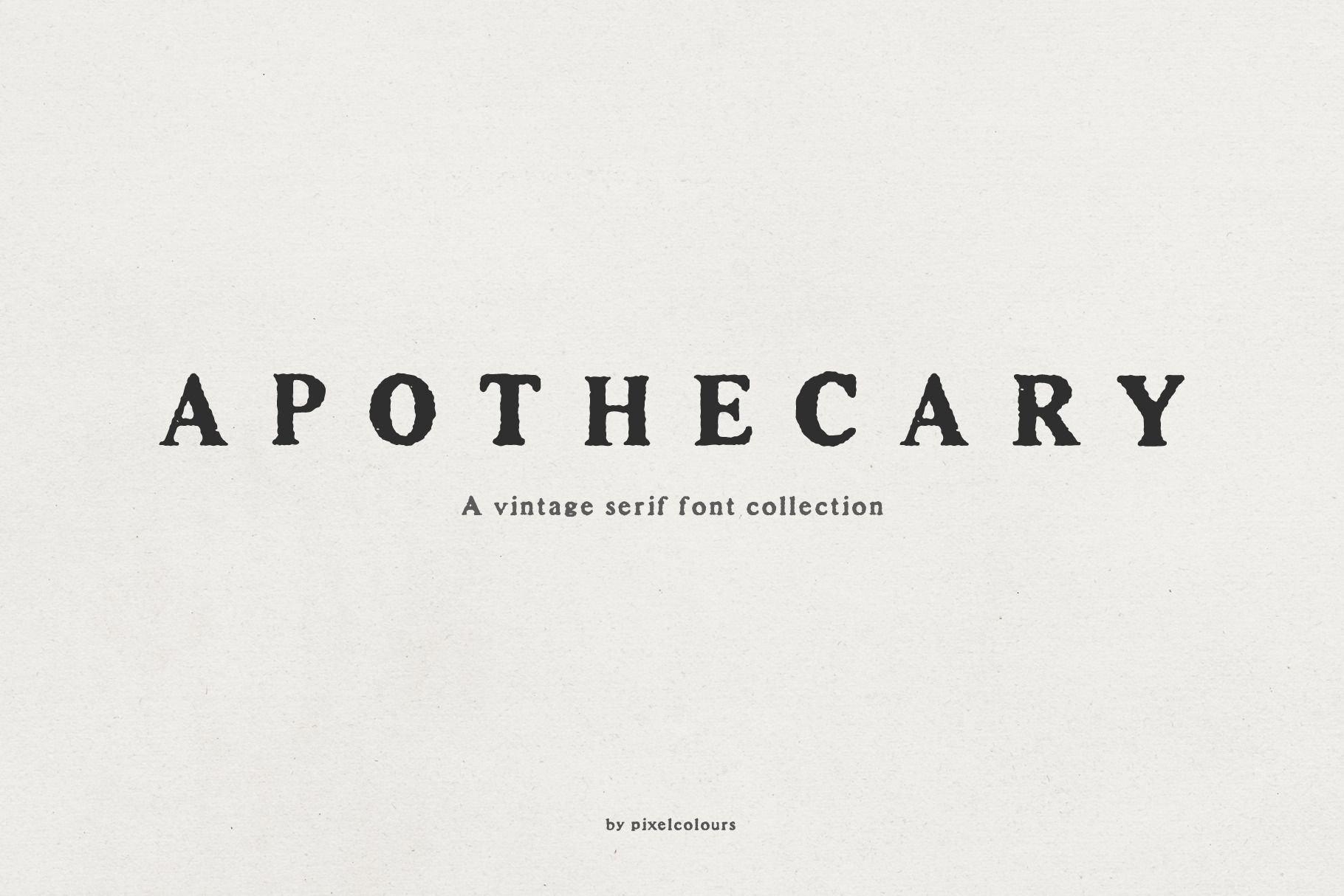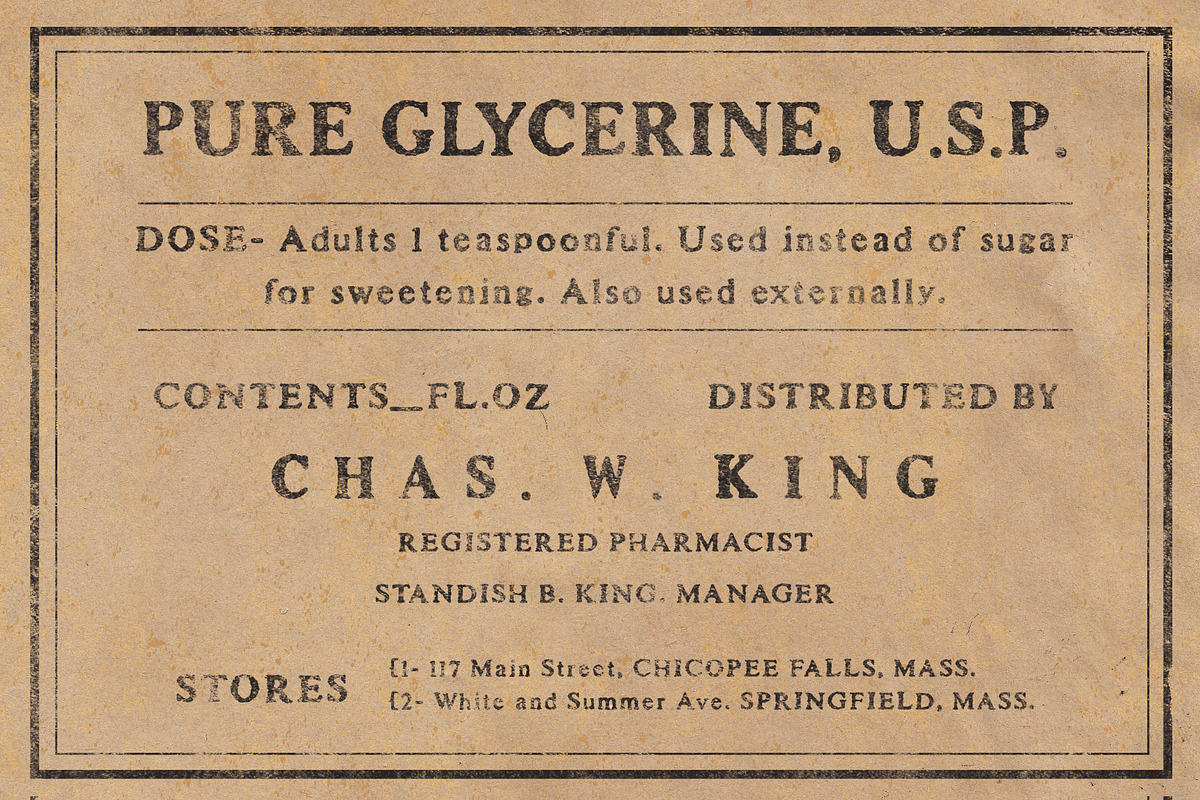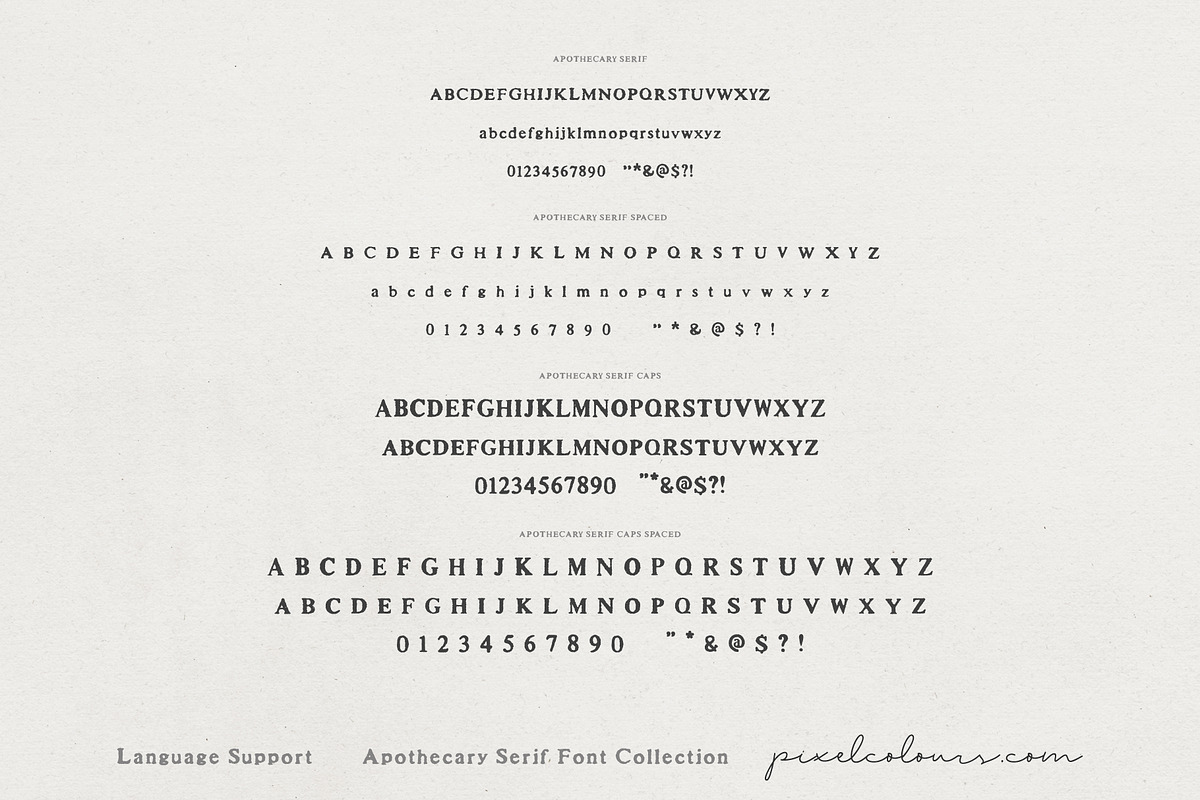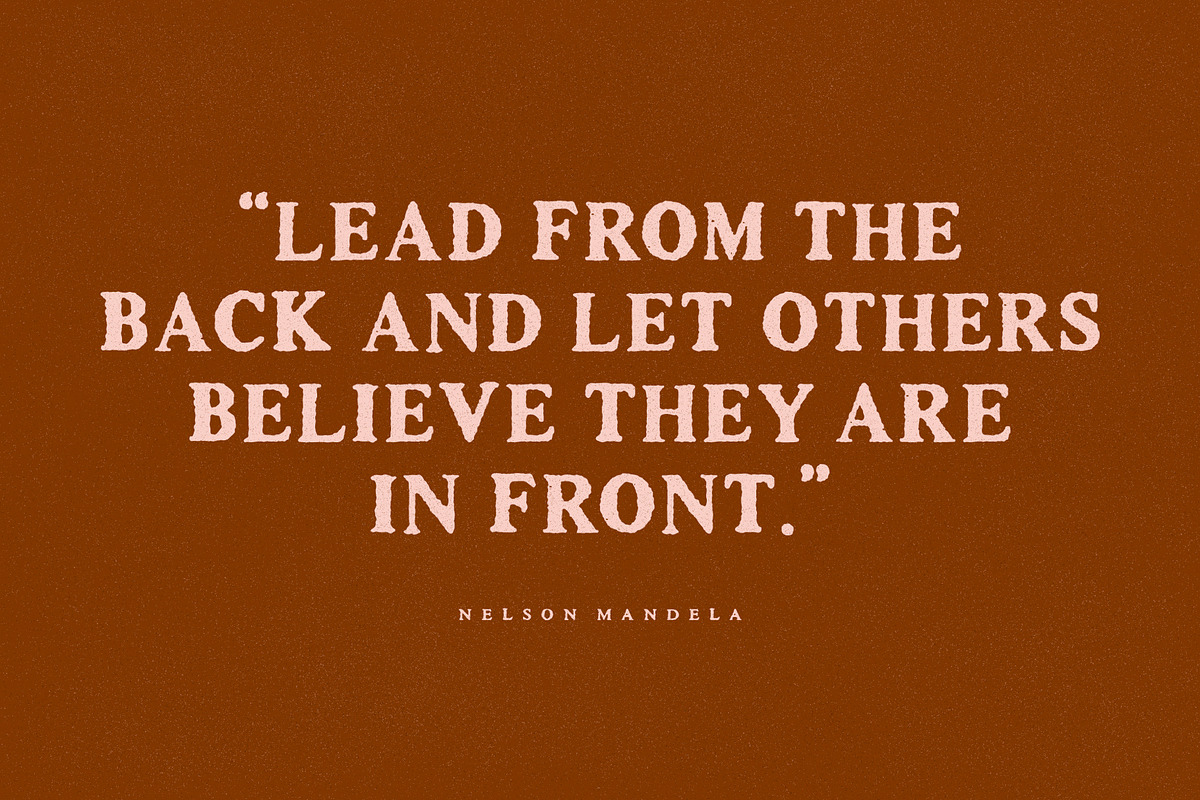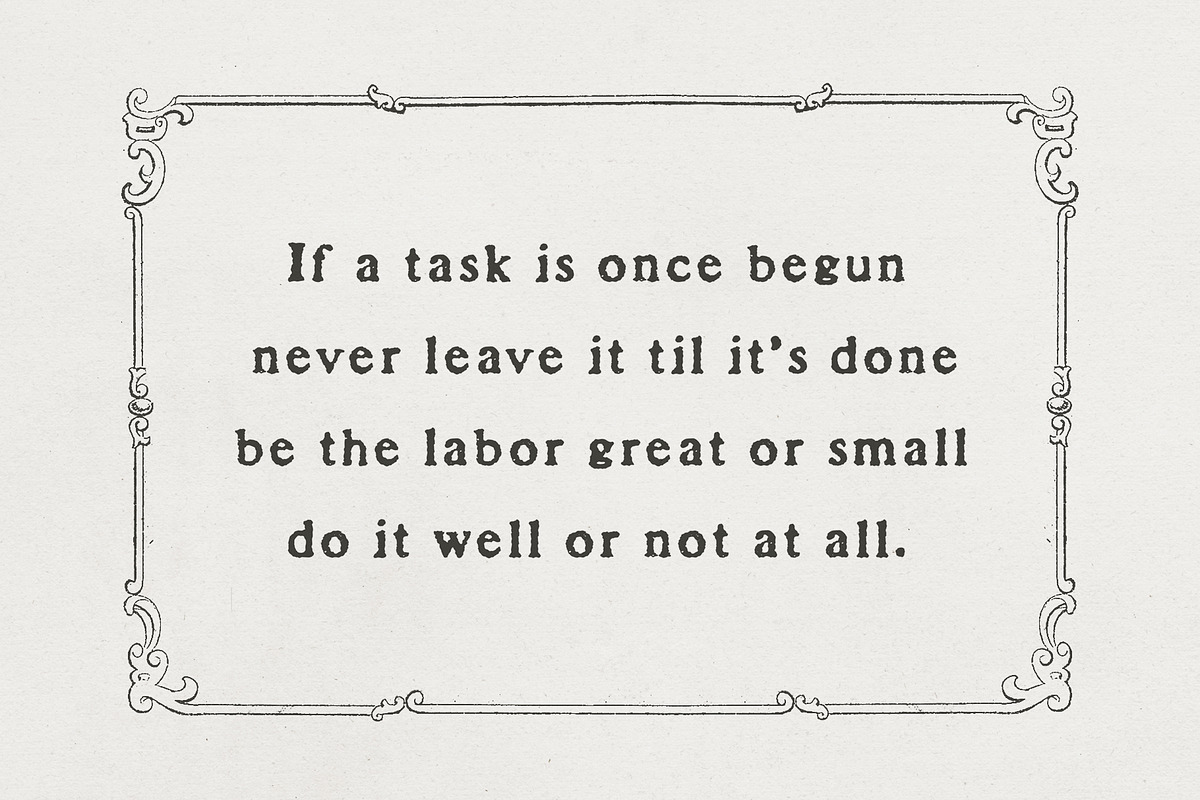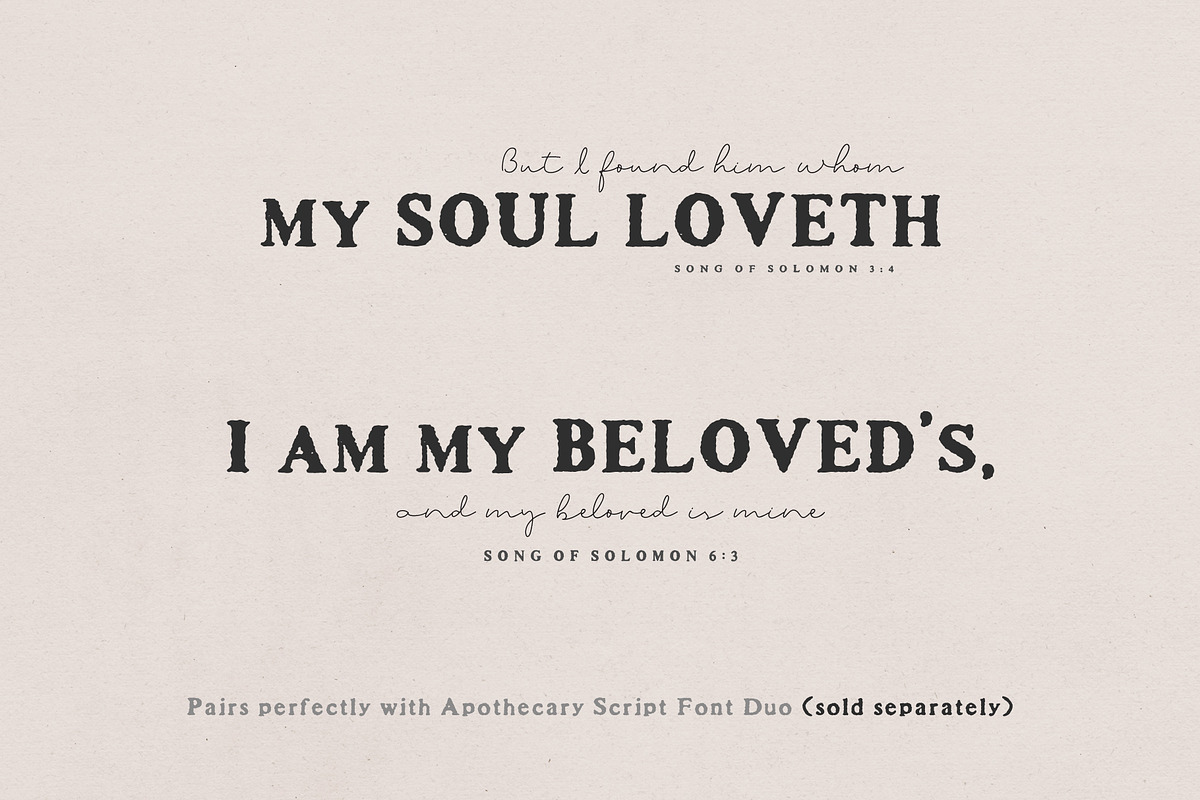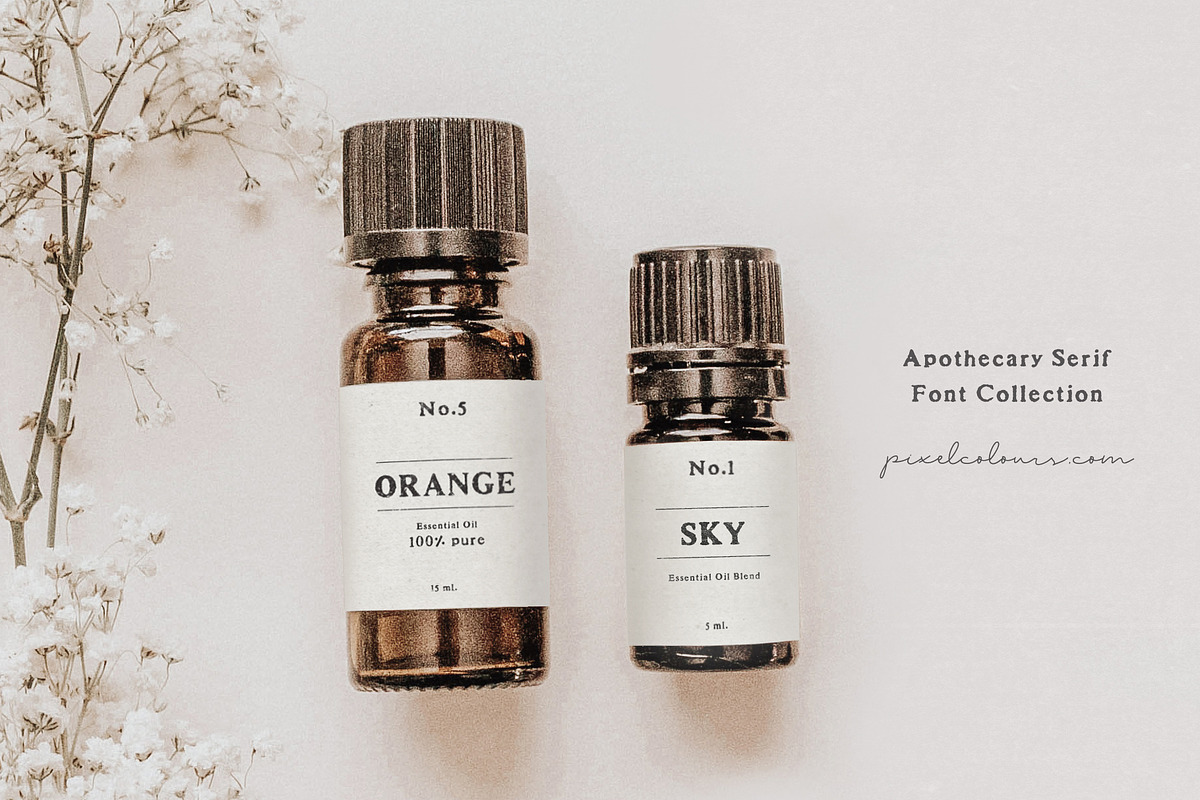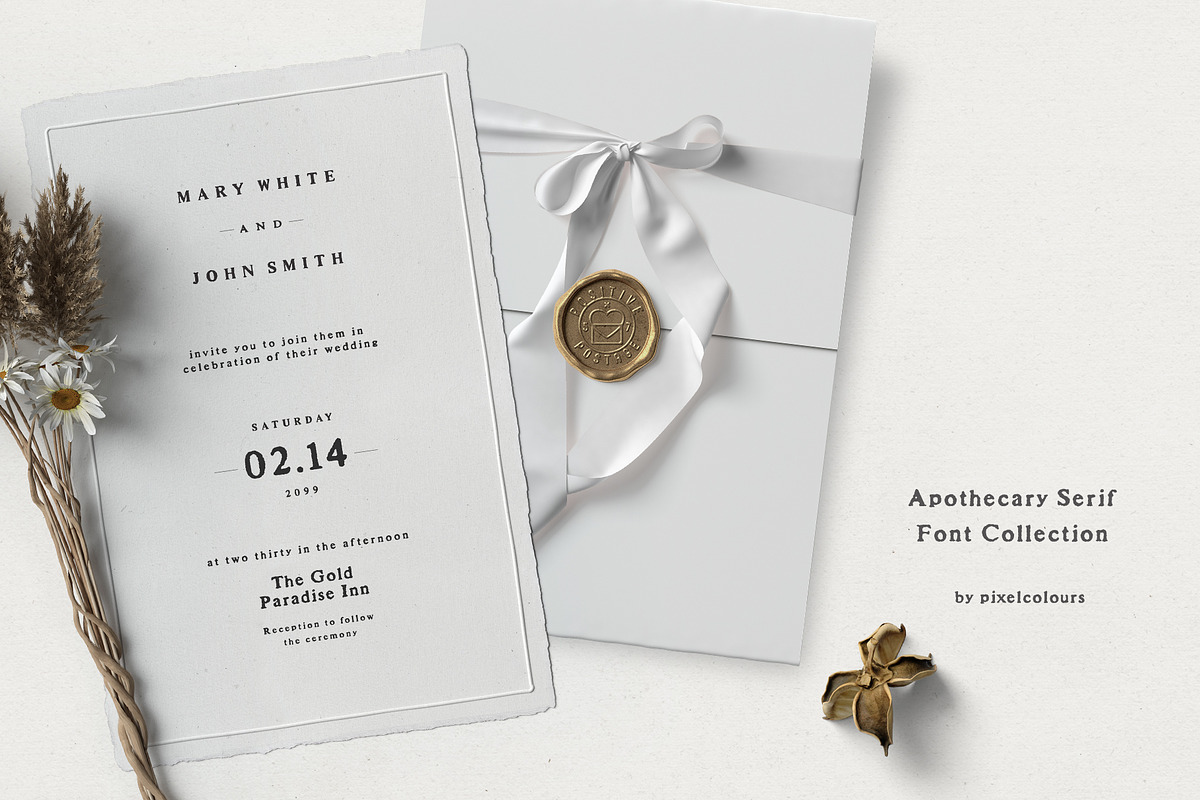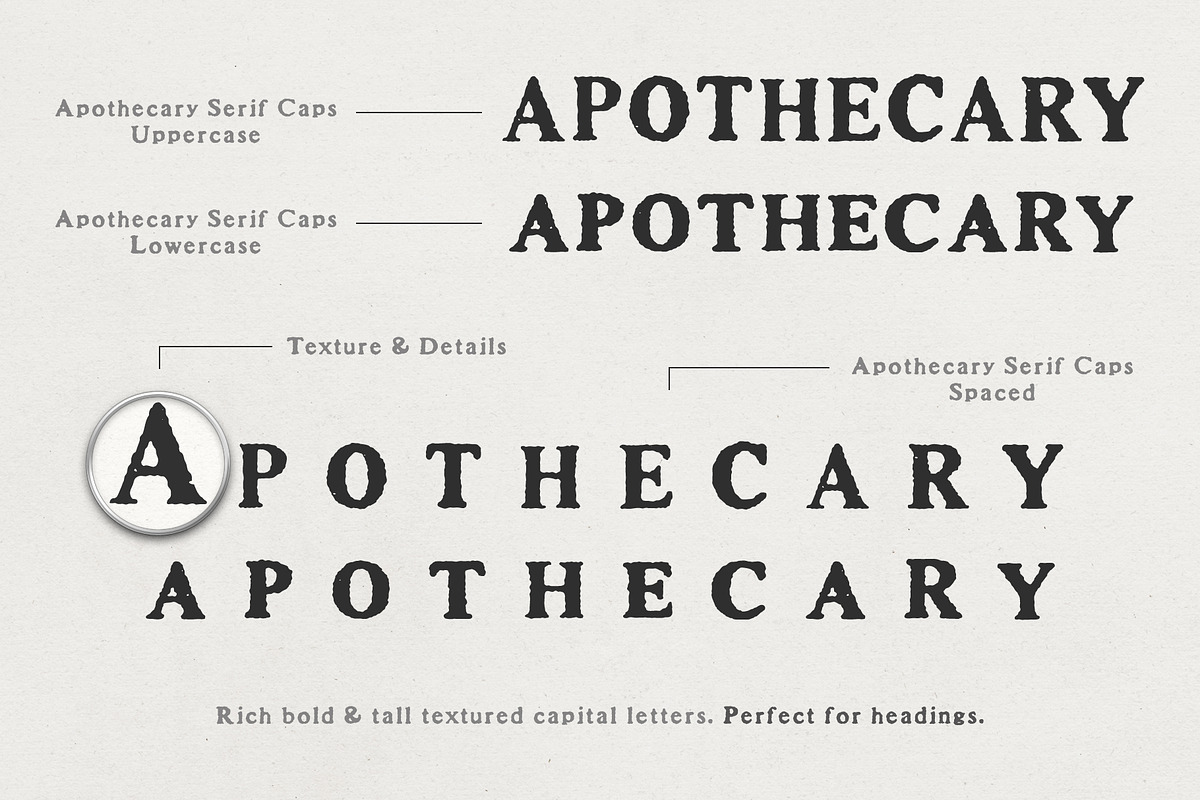
Apothecary Serif Font Collection
Apothecary Serif is a font collection inspired in vintage and antique prints. Great for texts or headings and perfect as a pairing font. Design quotes, packaging, wedding invites or labels and branding with a vintage style. Lovingly designed to match my original Apothecary Script (sold separately)
Apothecary Serif: a serif font with an antique print texture.
Apothecary Serif Spaced: beautifully spaced for texts or as a pairing font.
Apothecary Serif Caps: rich bold and tall textured capitals font that includes the lowercases as a secondary uppercase font, slightly smaller. Great for headings or as drop caps.
Apothecary Serif Caps Spaced: beautifully spaced for texts or as pairing font.
A beautiful font with a subtle texture that is not overdone, but noticeable enough for that but of grunginess. An excellent replication of the edges that an ink pen would leave on some grittier papers. You can quite easily add a gorgeous watercolour edge to this font for digital artists who shade in such a style. Incredibly versatile and aesthetically pleasing. Certainly worth the price tag if it's exactly what you're looking for, which it was, in my case.